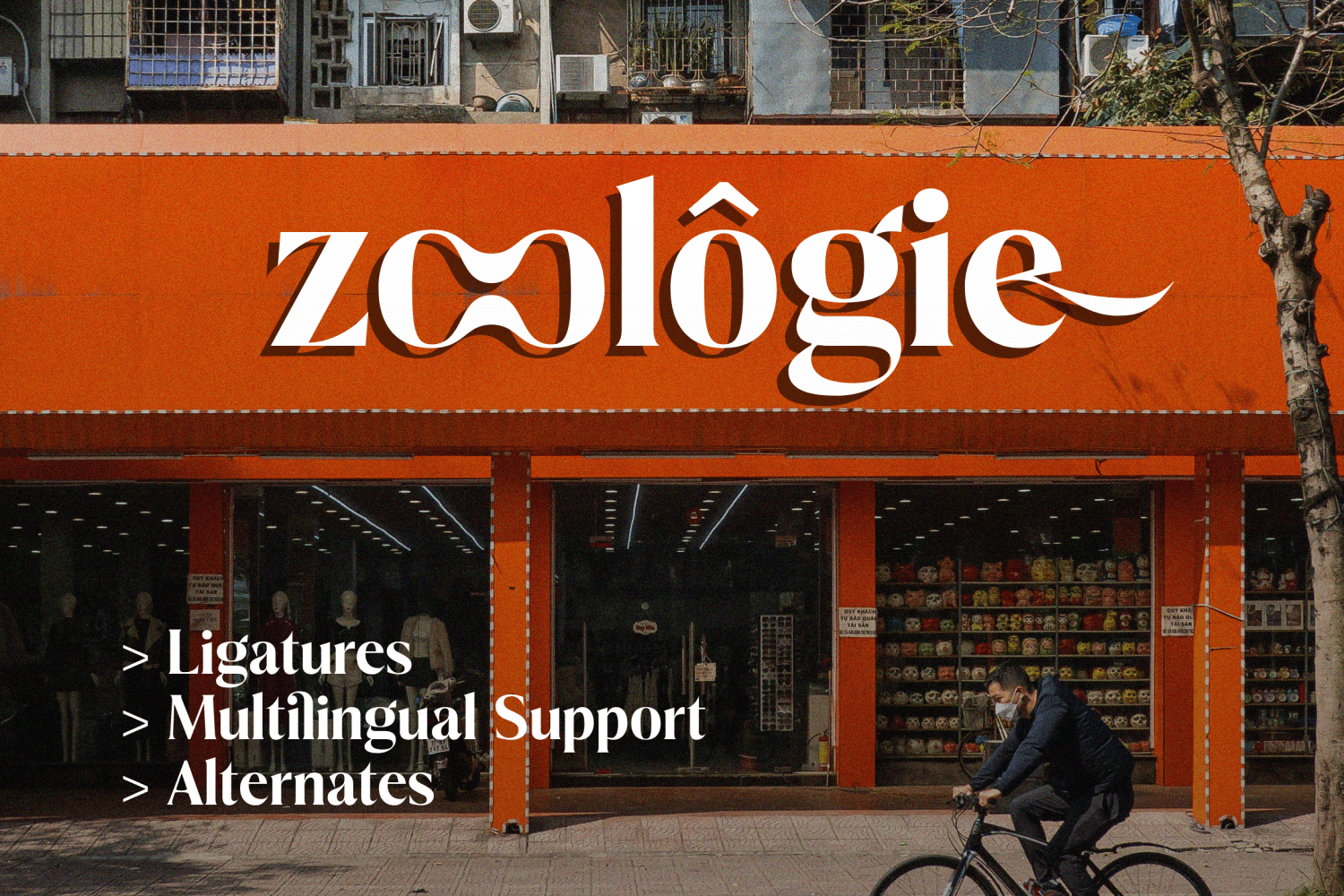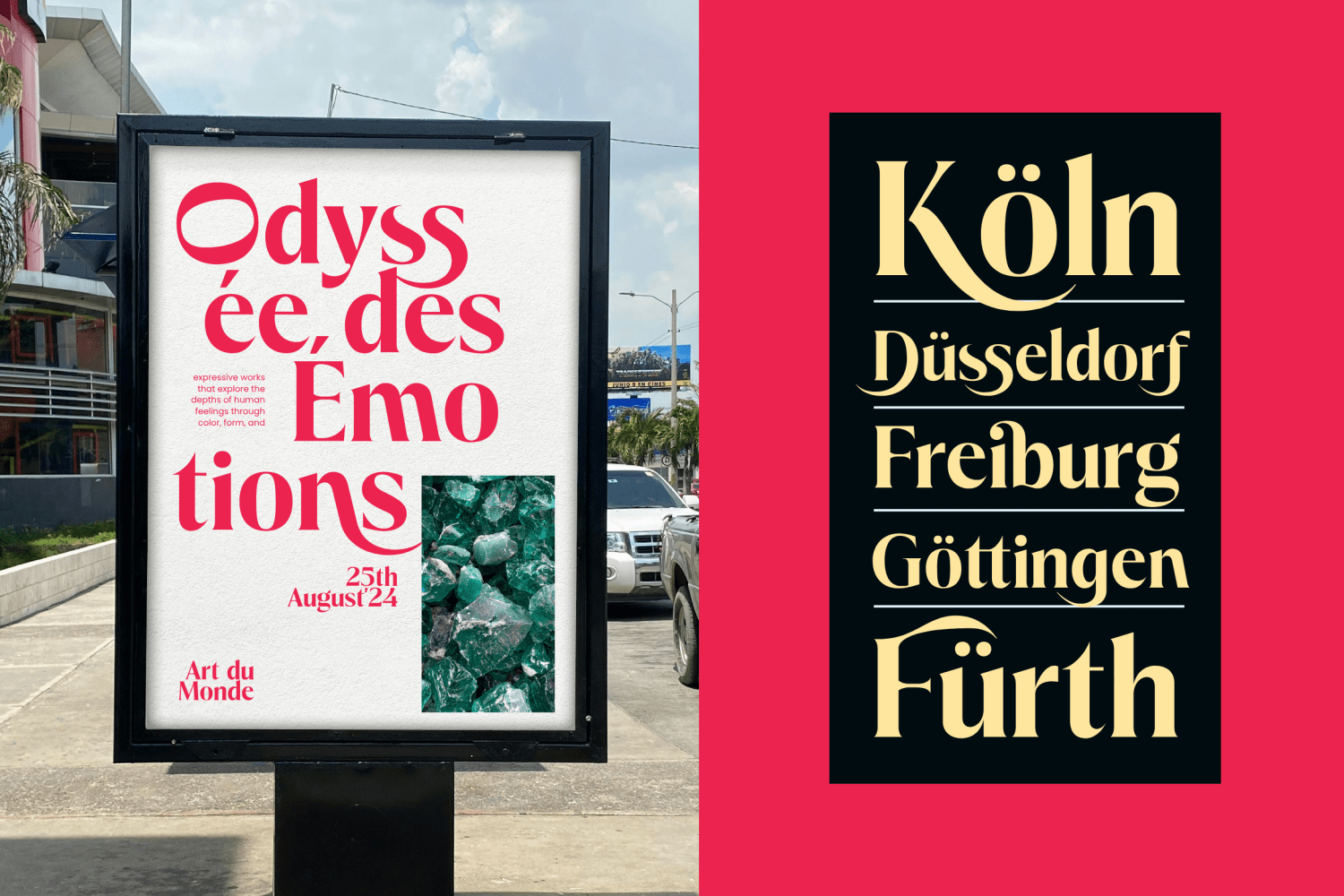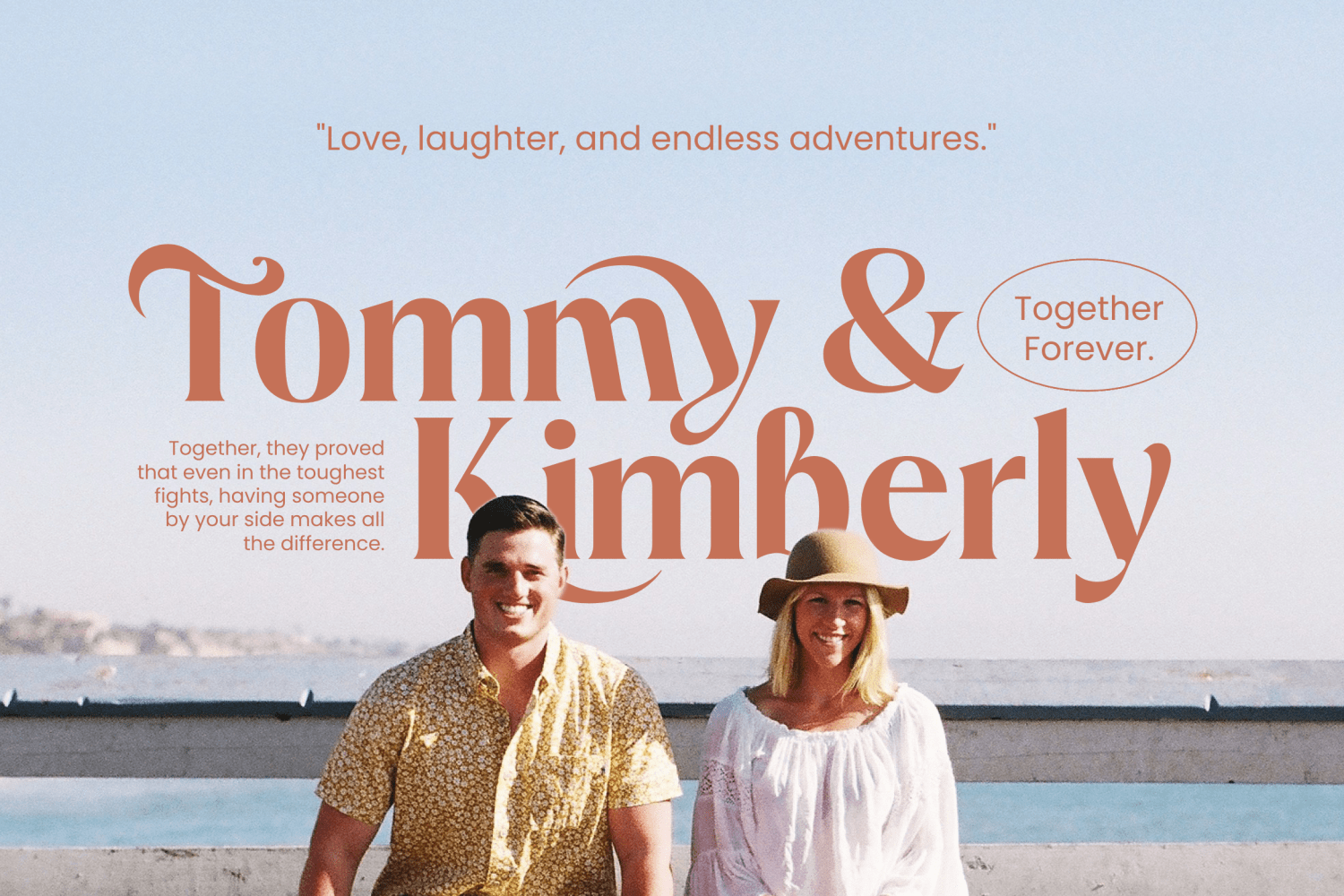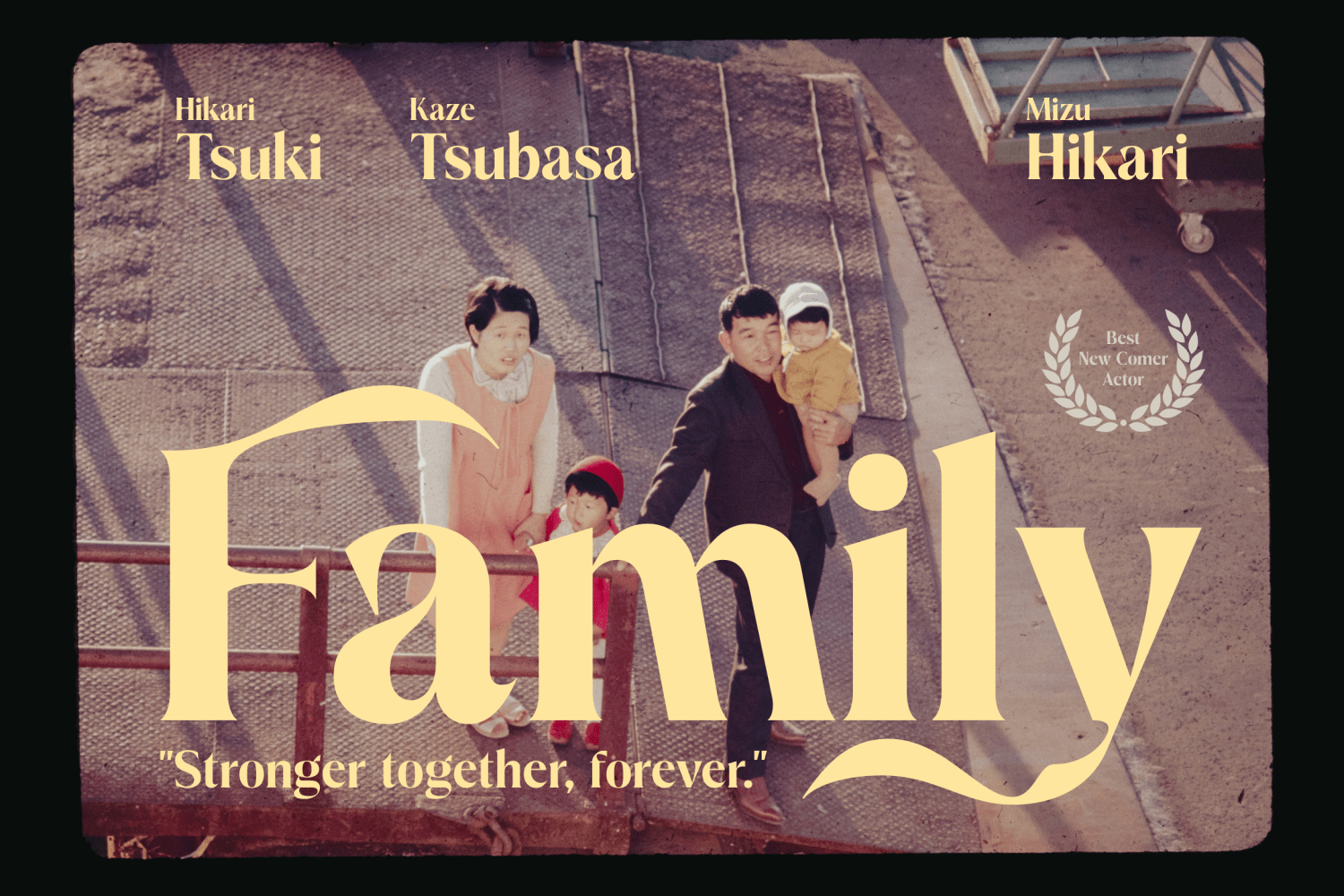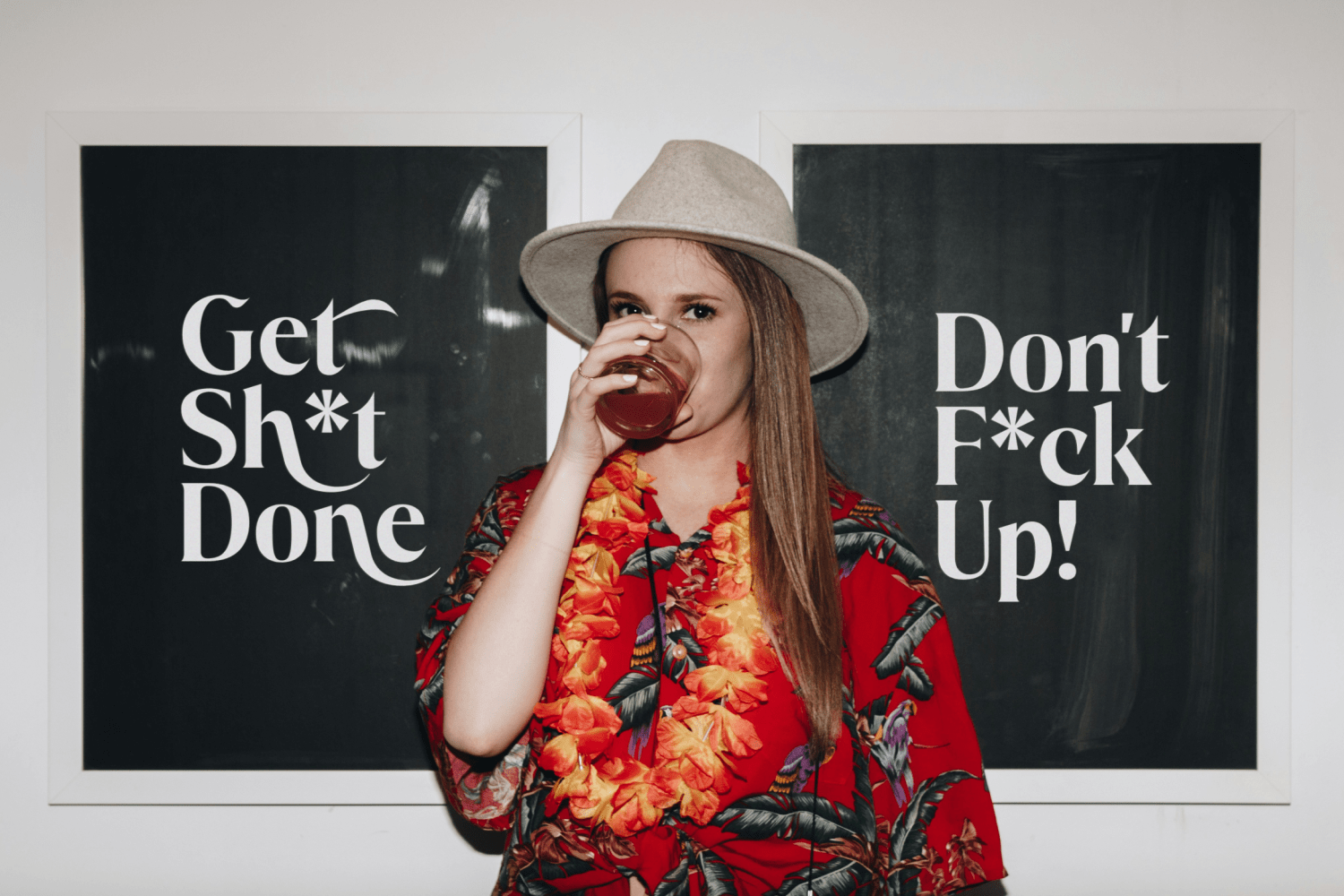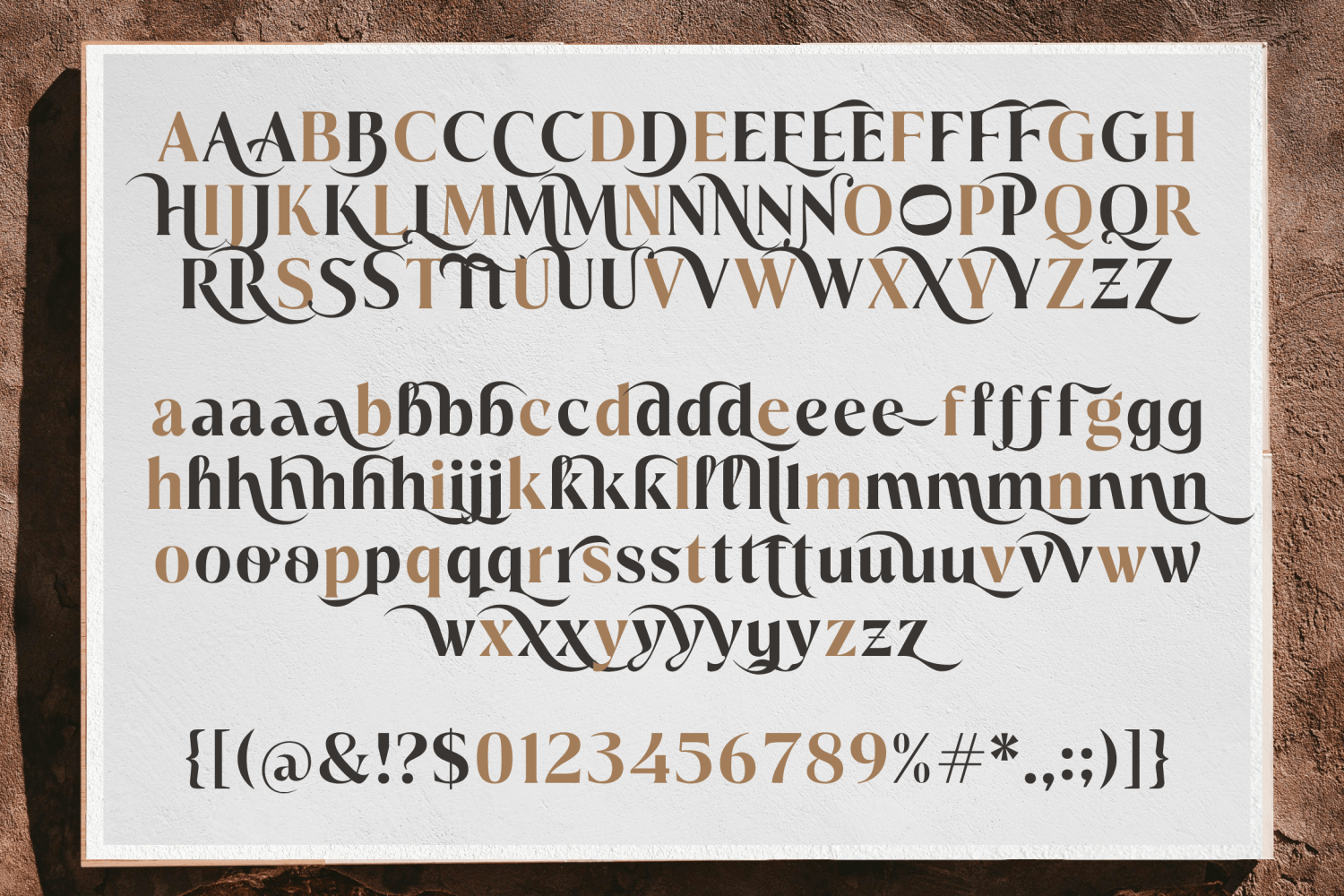
Rittalle
About Rittalle
Introducing Rittalle, a serif typeface with high contrast and smooth curves that offers an elegant and modern impression with a touch of sharp edges, perfect for the needs of sophisticated design applications. Features 405 Glyphs All Uppercase and…